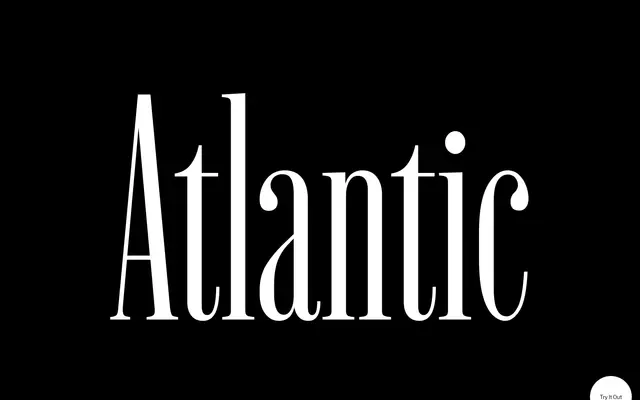
Atlantic
MCKL · Jeremy Mickel · 2026
A 42-style display serif family rooted in American Scotch Roman traditions, originally commissioned for the 2019 redesign of The Atlantic magazine.
Designed by Jeremy Mickel, Atlantic draws on 19th-century American interpretations of Scotch Romans, referencing specimens such as those from the Boston Type Foundry of 1860. The family spans three widths (XNarrow, Condensed), seven weights from XLight to XBlack, and matching italics, totalling 42 styles with variable font counterparts. What began as a single headline commission for The Atlantic grew into a full typographic system through years of editorial deployment and ongoing development at MCKL.
Atlantic is explicitly described as a display serif family inspired by American interpretations of Scotch Romans, placing it firmly in the display serif category with a Scotch Roman subcategory.